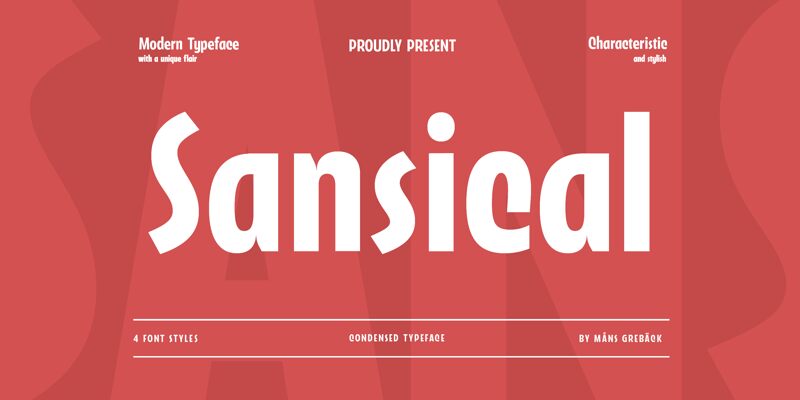
Sansical font by Måns Grebäck is a geometric modern sans serif with professional, clean, and dynamic properties. A contemporary look of the typeface is presented through a playful set of letters inspired by a wide range of contrasting forms. Letters in two weights are available for a versatile design approach and to bring in the needed variety.
Sansical font is suitable for branding, book covers, logos, magazines, social media, and packaging design. More possible usage include work of a smaller scale such as app interfaces and websites both on desktop and mobile.
Sansical is a modern sans-serif typeface that blends a distinctive style with clear, easy-to-read forms. It strikes a balance between cool, contemporary aesthetics and high legibility, making it a versatile option for both digital and print applications. The characteristic sharp edges and smooth curves give Sansical a unique personality, while its clean structure ensures it remains functional across a wide range of uses.